6. Basica Industrial (free for personal use)
This is a slightly different take on the steampunk font style, with letters resembling road signs. However, it has a similar powerful, industrial quality to it.
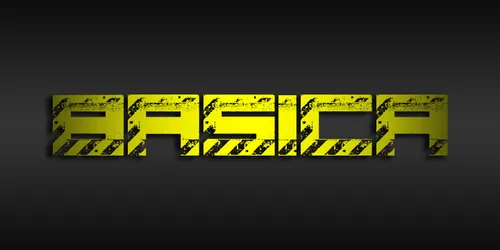
12. Victorian Fonts Collection (purchase only)
Steampunk style fonts are inspired by the Victorian aesthetic, with the addition of industrial elements. So, a vintage-looking Victorian typeface is a great way to go for your steampunk designs.
This high-quality font package comes with two font styles: King Edward and Queen Victoria. Both the styles ooze the Victorian-era feel because of their classical, ornamental, and decorative character design.
13. Classic Heritage (purchase only)
Classic Heritage is another Victorian font design, but a bit less orwith a distinctly retro look and is ornamental. English and German characters, 13 style variant letters, and a vector design in .eps and .ai files are included in the bundle.
14. Fisherman’s Knot (purchase only)
As the name implies, Fisherman’s Knot is an exciting typeface inspired by the knots found in fishermen’s nets. It is based on the classic Victorian style, although it has its distinct character. This font is an excellent buy if you need a label because it has an editable label template in vector format.